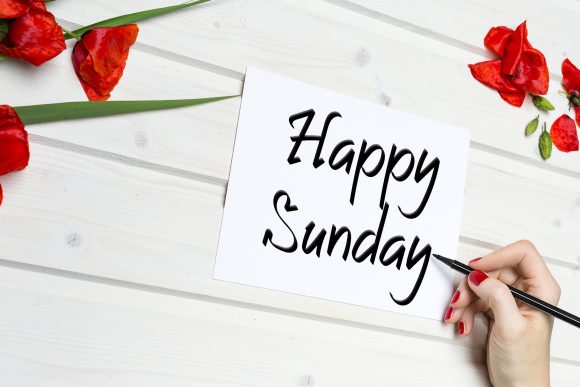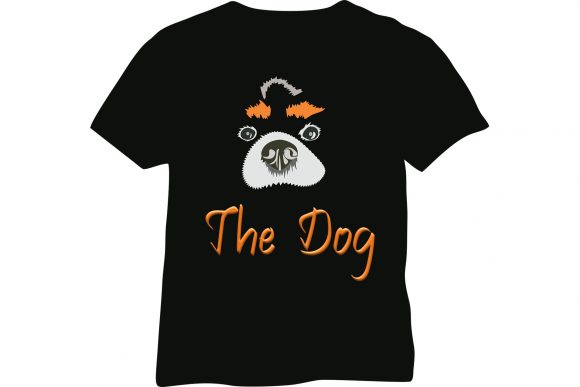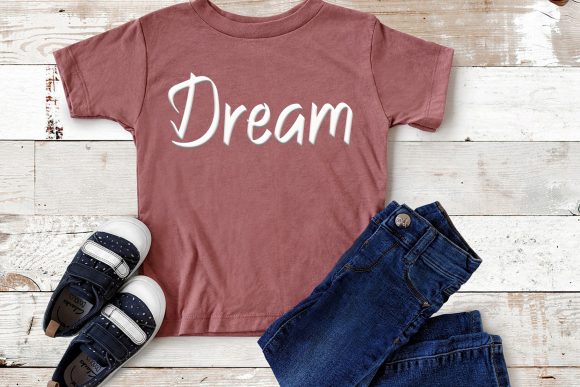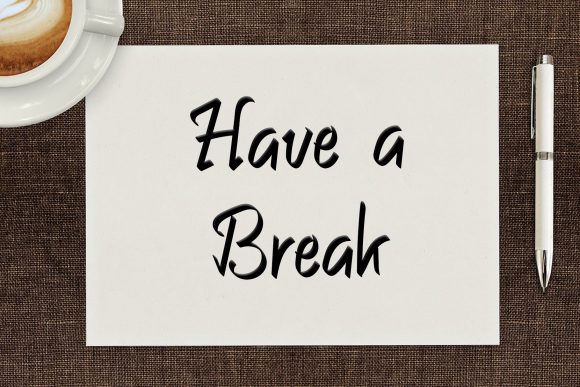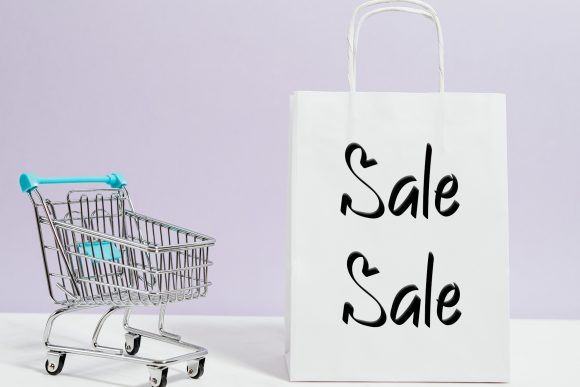
Discover the Secret to Elevating Your Branding with Style
Have you ever been working on a project, pouring your heart and soul into it, only to feel like something’s missing? That’s where the magic happens – when you find the perfect font to bring your vision to life. For designers, the right font can make all the difference between a good project and a great one.
Enter Aurellia Font, a smooth and elegant display font designed to leave a lasting impression. Whether you’re creating a luxury brand or a high-end publication, Aurellia Font is the perfect choice to make your projects shine. Its sleek and sophisticated design will elevate your branding and capture the attention of your audience.
With Aurellia Font, you’ll be able to create stunning visual identities that set you apart from the competition. Its versatility makes it a valuable tool for designers, allowing you to experiment with different styles and applications. So why settle for ordinary when you can make your branding extraordinary with the Aurellia Font?
- Unique Characteristics: Aurellia Font features a unique blend of modern and vintage elements, with elegant lines and subtle texture, making it perfect for creative and sophisticated designs.
Aurellia Font Review
Aurellia Font is a beautiful, elegant font that I’ve had the pleasure of working with. One thing that really stands out is its ✨ stunning ligatures ✨. They add a level of sophistication and refinement that elevates the overall design. The font also has a wide range of weights, from thin to bold, making it suitable for a variety of applications.
- ✨ Beautiful ligatures that add a touch of elegance
- ✨ Wide range of weights for versatility
- ✨ Suitable for both digital and print designs
However, I did encounter a few limitations with Aurellia Font. ⚠️ One of the main issues is that it can be quite difficult to read at small font sizes, especially in digital applications. Additionally, the font’s italic styles can sometimes look a bit awkward.
- ⚠️ Difficult to read at small font sizes
- ⚠️ Awkward italic styles
Overall, I think Aurellia Font is a great choice for designers looking to create a sophisticated and elegant design. While it may have a few limitations, its stunning ligatures and wide range of weights make it a worthwhile investment.
Tips for getting the most out of Aurellia font in Canva: Use it for headings and titles to add a touch of elegance and sophistication.
Tips for getting the most out of Aurellia font in Adobe Photoshop or Illustrator: Use it for creating custom typography and adding a touch of luxury to your designs.
Tips for getting the most out of Aurellia font in PowerPoint or Word: Use it for creating presentations and documents with a touch of sophistication and elegance.
Aurellia font is perfect for:
- Custom typography and graphic design projects
Remember to adjust the font size, style, and
Alternatives to Aurellia Font
Playfair Display is a luxurious and elegant font, ideal for creating a high-end look. It features intricate details and flourishes, making it perfect for use in invitations, magazine headlines, and other premium materials. Compared to Aurellia Font, Playfair Display has a more ornate and sophisticated feel, with a greater emphasis on elegance and refinement.
Great Vibes is a modern and stylish font, great for creating a fun and playful atmosphere. It features a unique blend of script and sans-serif elements, making it perfect for use in logos, advertisements, and social media graphics. Compared to Aurellia Font, Great Vibes has a more casual and approachable feel, with a greater emphasis on creativity and experimentation.
Pacifico is a beautiful and elegant font, ideal for creating a relaxed and sophisticated look. It features a unique blend of script and serif elements, making it perfect for use in branding, packaging, and other materials where a sense of calm and serenity is desired. Compared to Aurellia Font, Pacifico has a more laid-back and effortless feel, with a greater emphasis on simplicity and elegance.